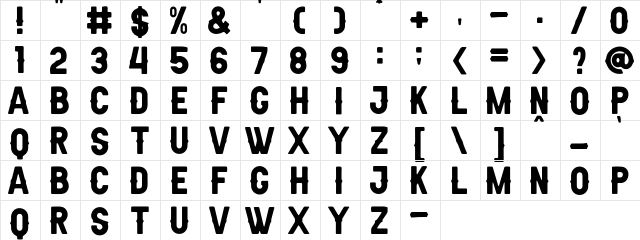
Aldivaro Rounded Demo Rounded
Design Context for Aldivaro Rounded Demo Typeface
Aldivaro Rounded Demo uses gentle rounded endings to create a warm, inviting typographic personality — less corporate than geometric sans, more refined than playful display fonts.
Well-suited to UI design, mobile interfaces, and any brand that wants approachability without sacrificing clarity.
Font Pairing: Pairs well with a rounded or humanist sans for body copy, maintaining the friendly tone without relying on Aldivaro Rounded Demo to carry extended reading.
Pro Tip: Use Aldivaro Rounded Demo for UI elements, app interfaces, and anywhere a friendly, approachable tone needs to be maintained without sacrificing clarity.